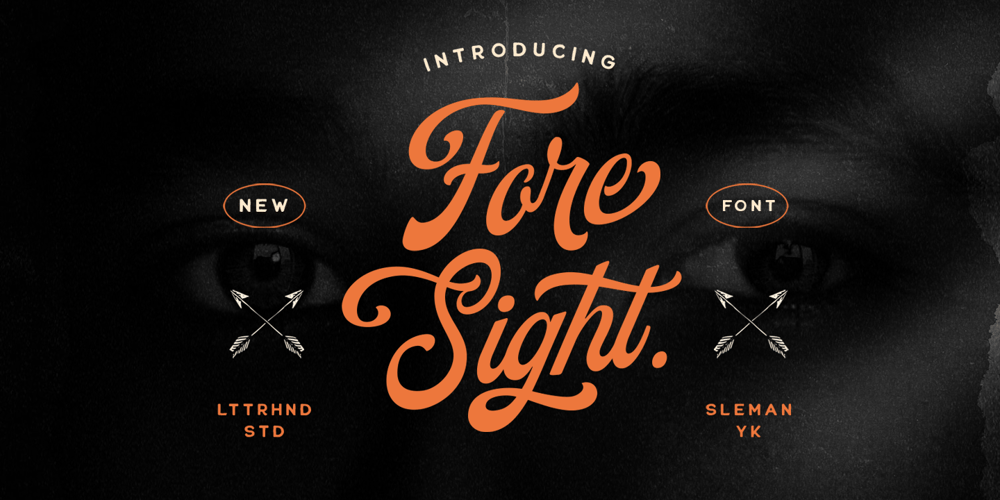
Foresight
Foresight font
Foresight Font Family was designed by Hendry Juanda and published by Letterhend. Foresight contains 1 styles and family package options. Foresight is a vintage script font which is purposely made for a headline, display or logotype.This type of font perfectly made to be applied especially in logo, and the other various formal forms such as invitations, labels, logos, magazines, books, greeting / wedding cards, packaging, fashion, make up, stationery, novels, labels or any type of advertising purpose.Features : uppercase & lowercase numbers and punctuation multilingual alternates & ligatures PUA encoded We highly recommend using a program that supports OpenType features and Glyphs panels like many of Adobe apps and Corel Draw, so you can see and access all Glyph variations. How to access opentype feature : letterhend.com/tutorials/using-opentype-feature-in-any-software/